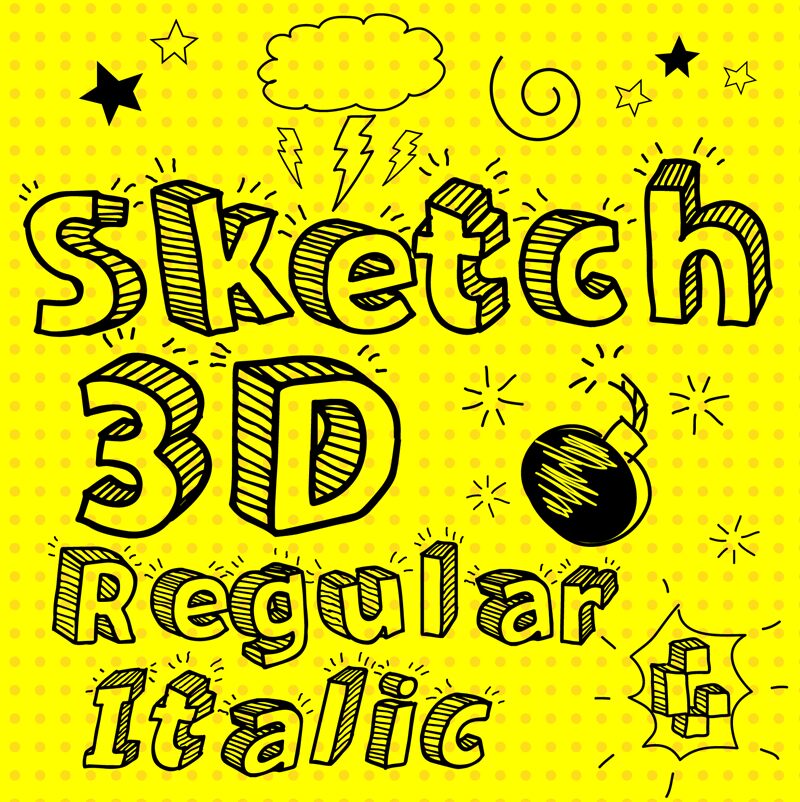
Sketch 3D Regular
Sketch 3D font by Galdino Otten Fonts is a free display hand-drawn font with a whimsical charm and a casual tone. This artistic typeface generates the illusion of depth in characters via the connecting strokes and random imperfections, mimicking a true sketch. Its visual presence creates an instant attention grabber for any platform users.
This unique font can serve many purposes that highlight its light yet artistic nature. Think comics, posters, book covers, social media posts, YouTube titles, typography arts, magazines covers, album music art albums & covers among other exquisite stuff from this beautiful piece of design magic!